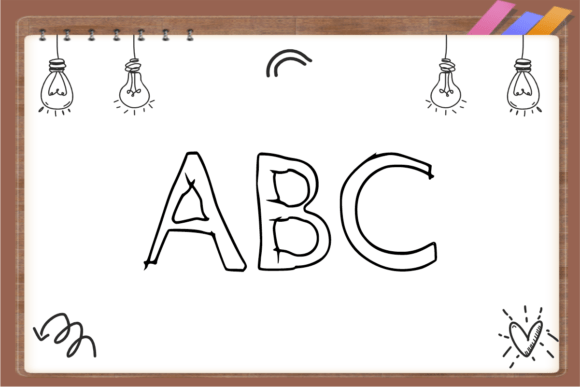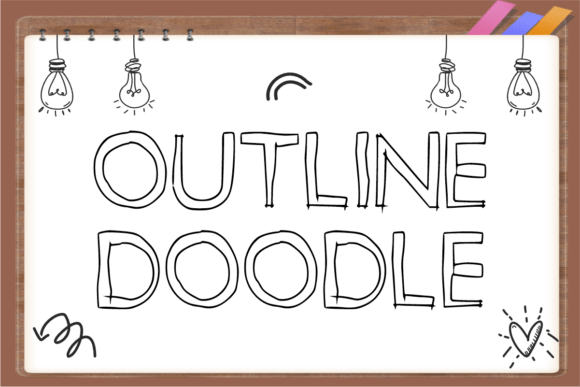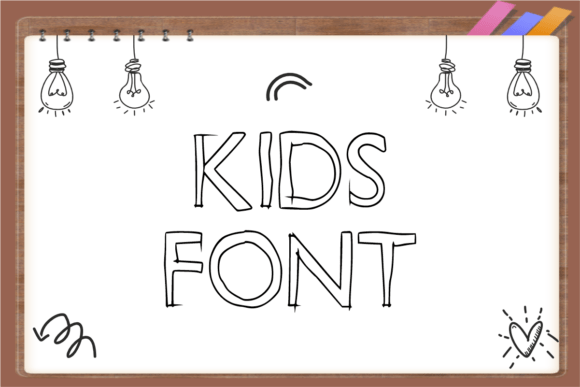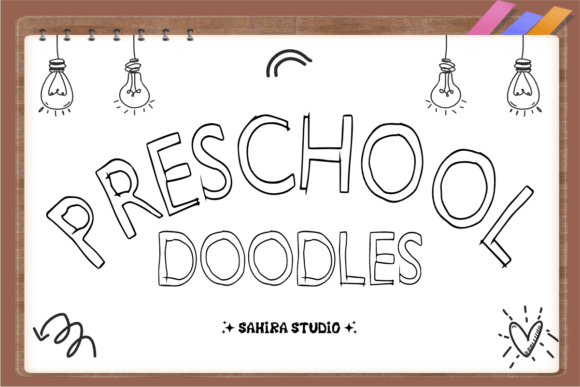
Introducing β€œPreschool Doodles,” a cartoon-like handwritten display font written by preschoolers, consisting exclusively of capital letters.
Preschool Doodles is a quirky, fun, hand-drawn display font perfect for early childhood projects Its uneven, doodle-style letters bring a sense of imagination and creativity, making it great for worksheets, classroom posters, learning apps, and educational games.